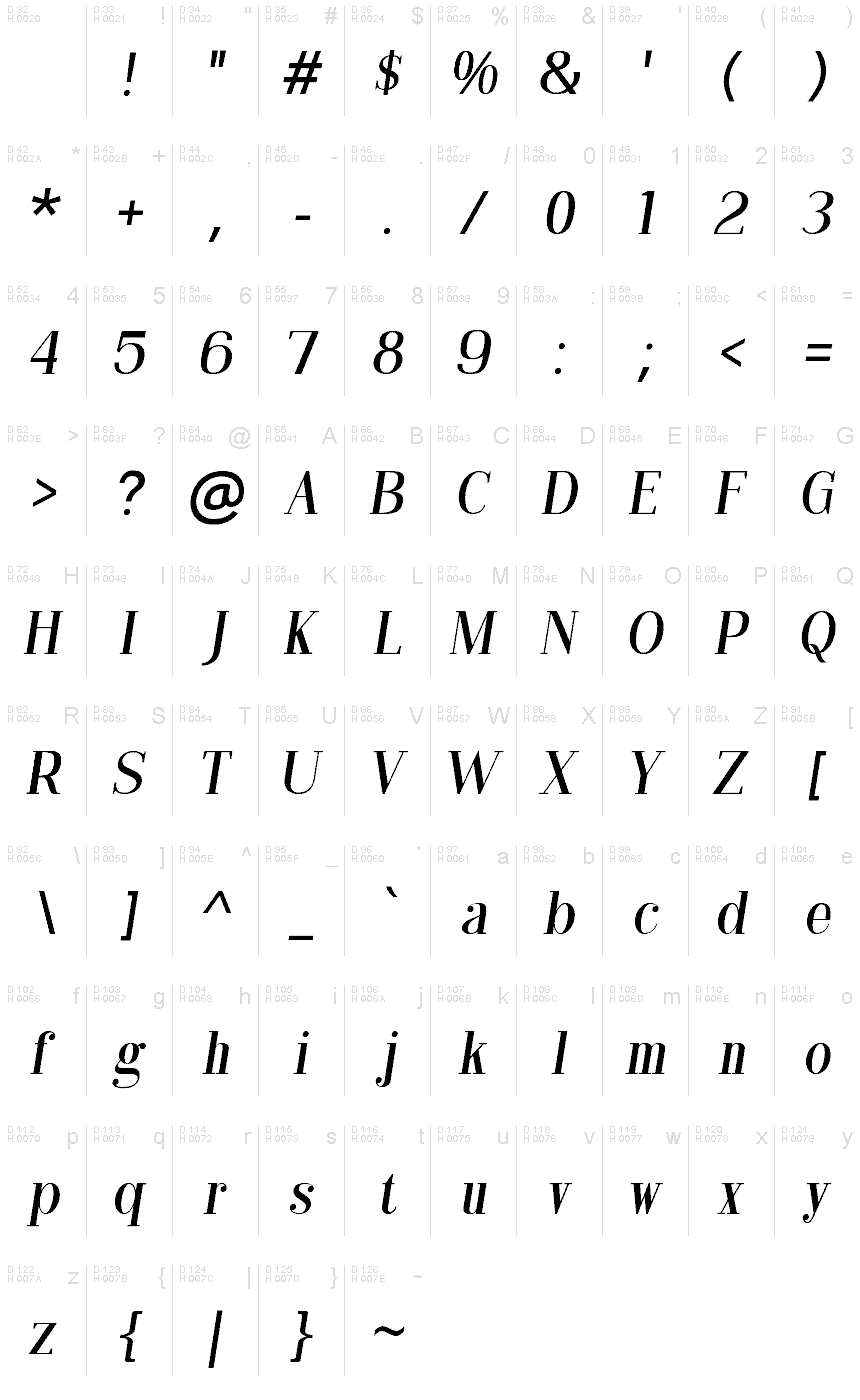
hello good old style Regular slant
Hello Good Old Style Slant font by Studio Hello Good is an exquisite and classic addition to your typography toolbox. Its unusual letters with a blend of the masculine and feminine come in a serif style, bringing elegance, sophistication, as well as luxury to projects that incorporate it. This stunning typeface is available for free which makes it both accessible and useful.
Logos, branding designs, packaging boxes, bottles, magazines/newspapers covers/titles, posters/flyers/banners for formal or casual occasions are all dazzling projects that can make use of this unique font. Its additional possible utilizations cover business cards designs and stationery among other things.